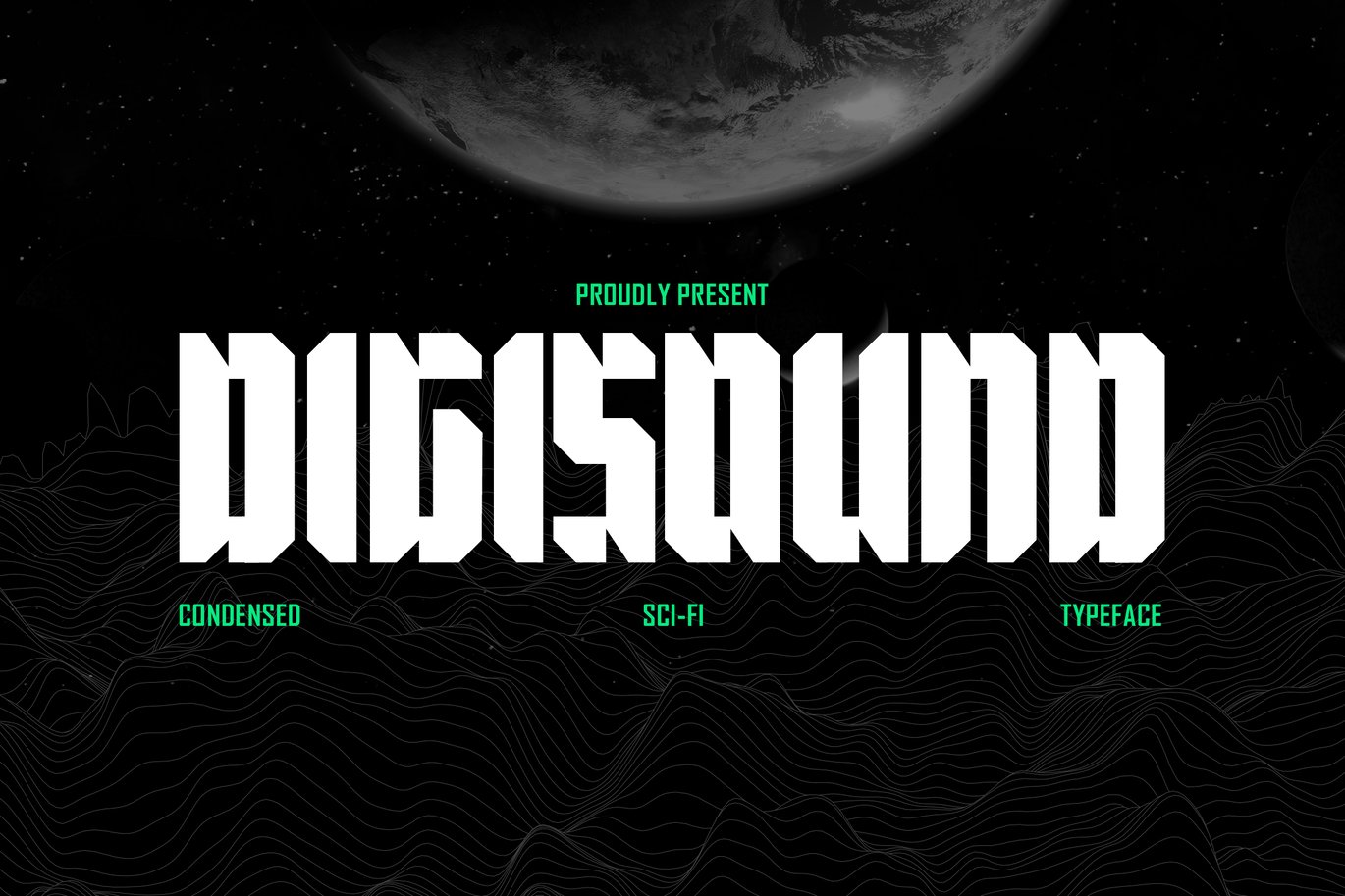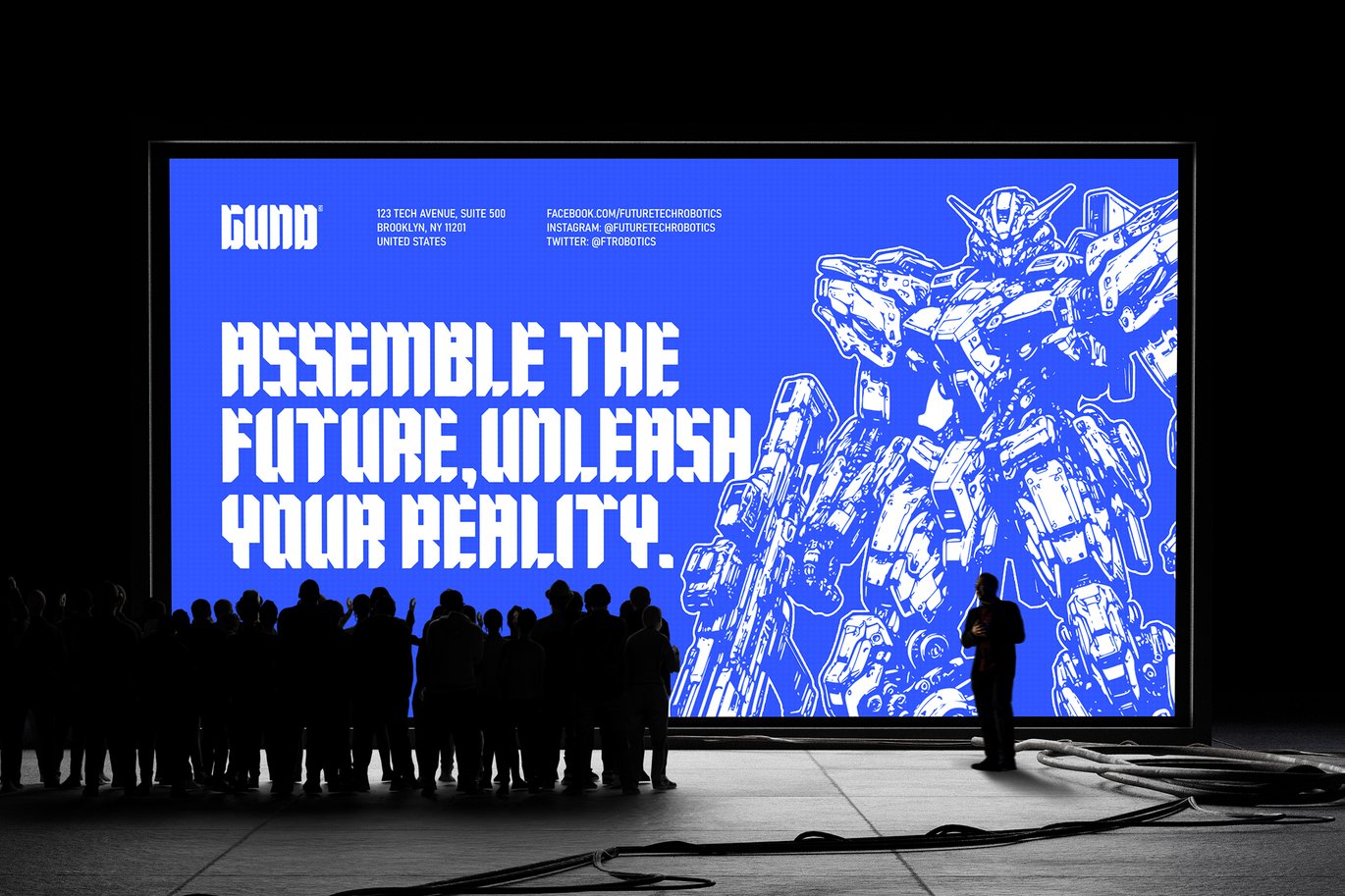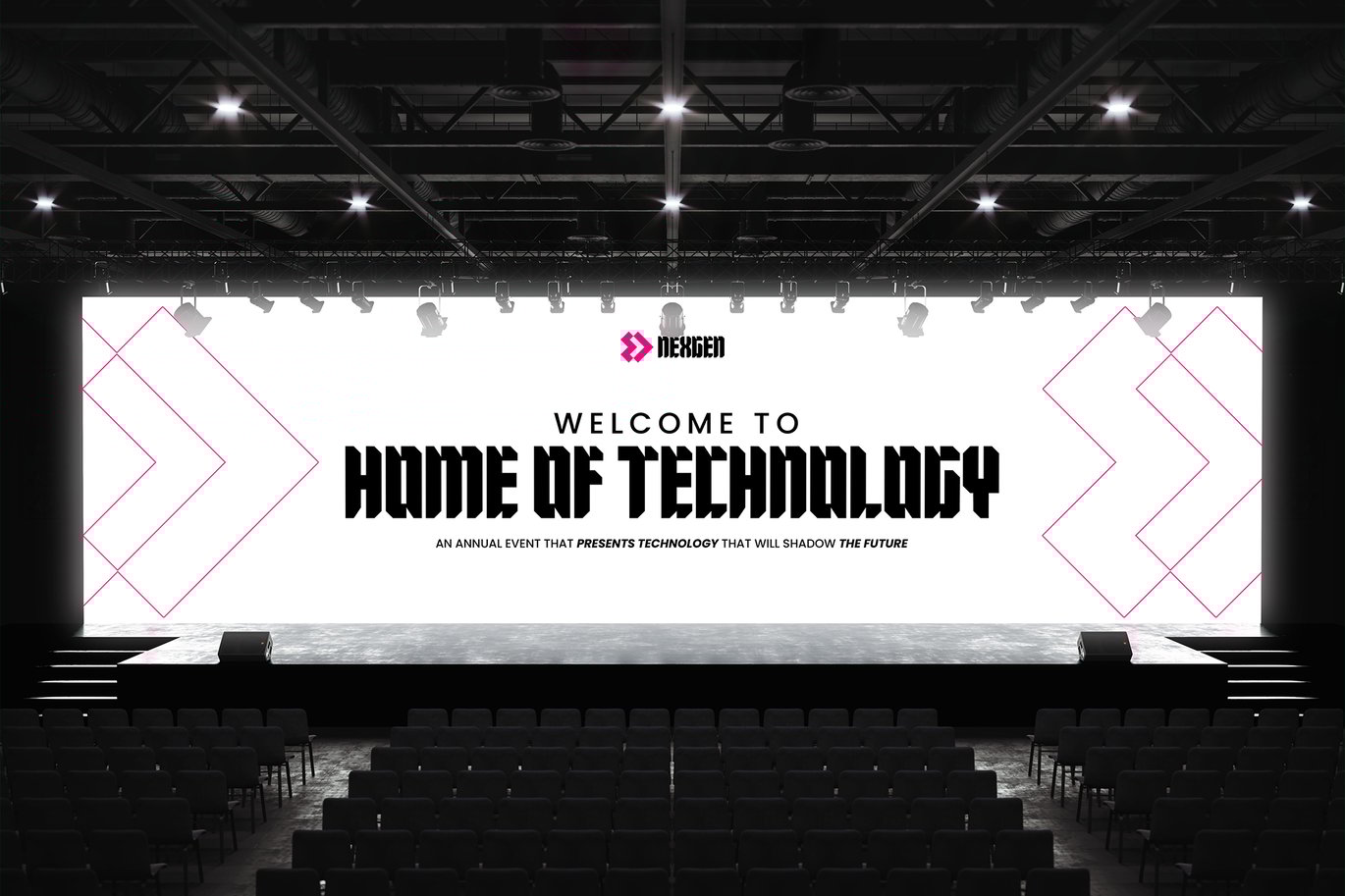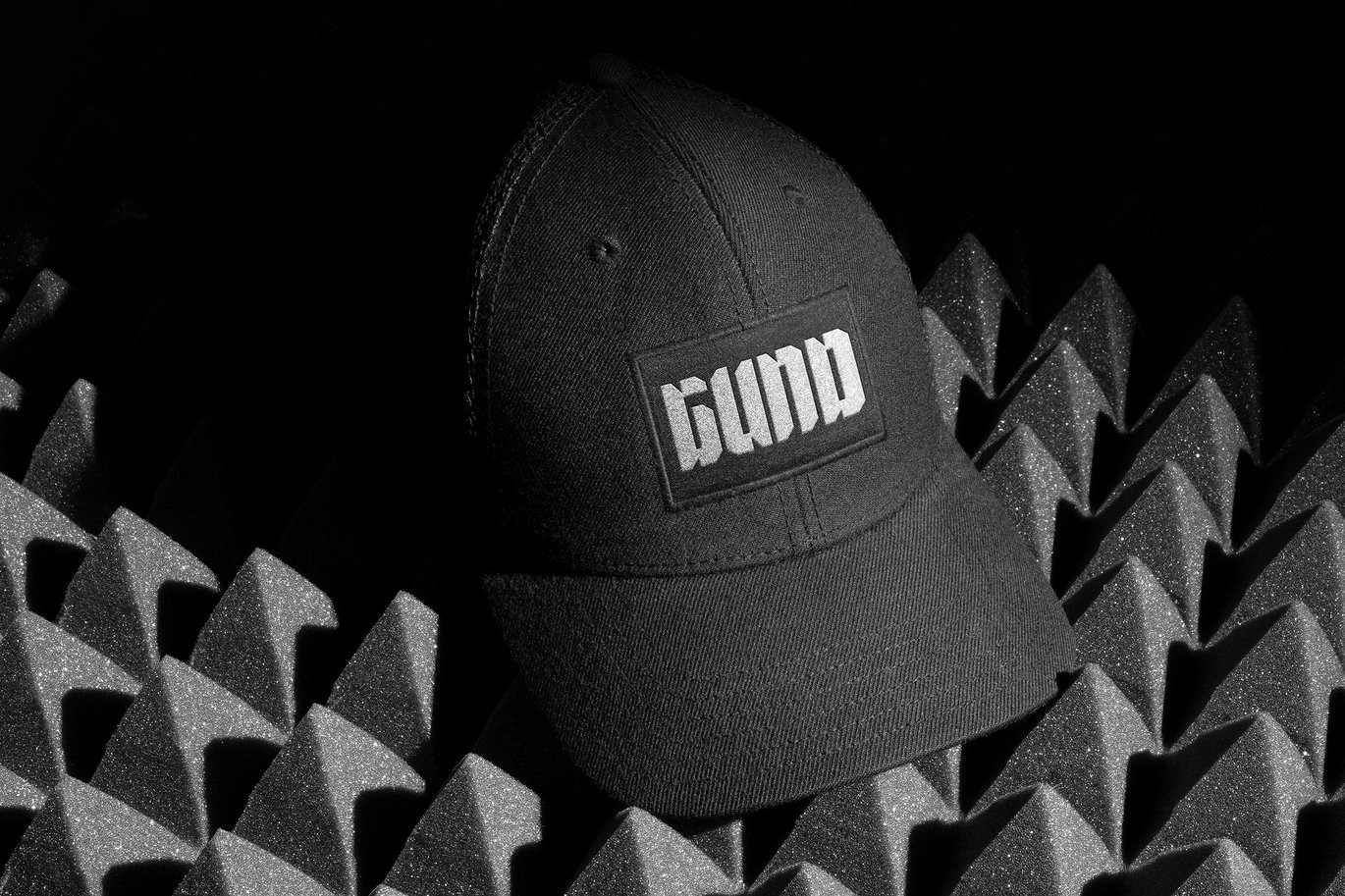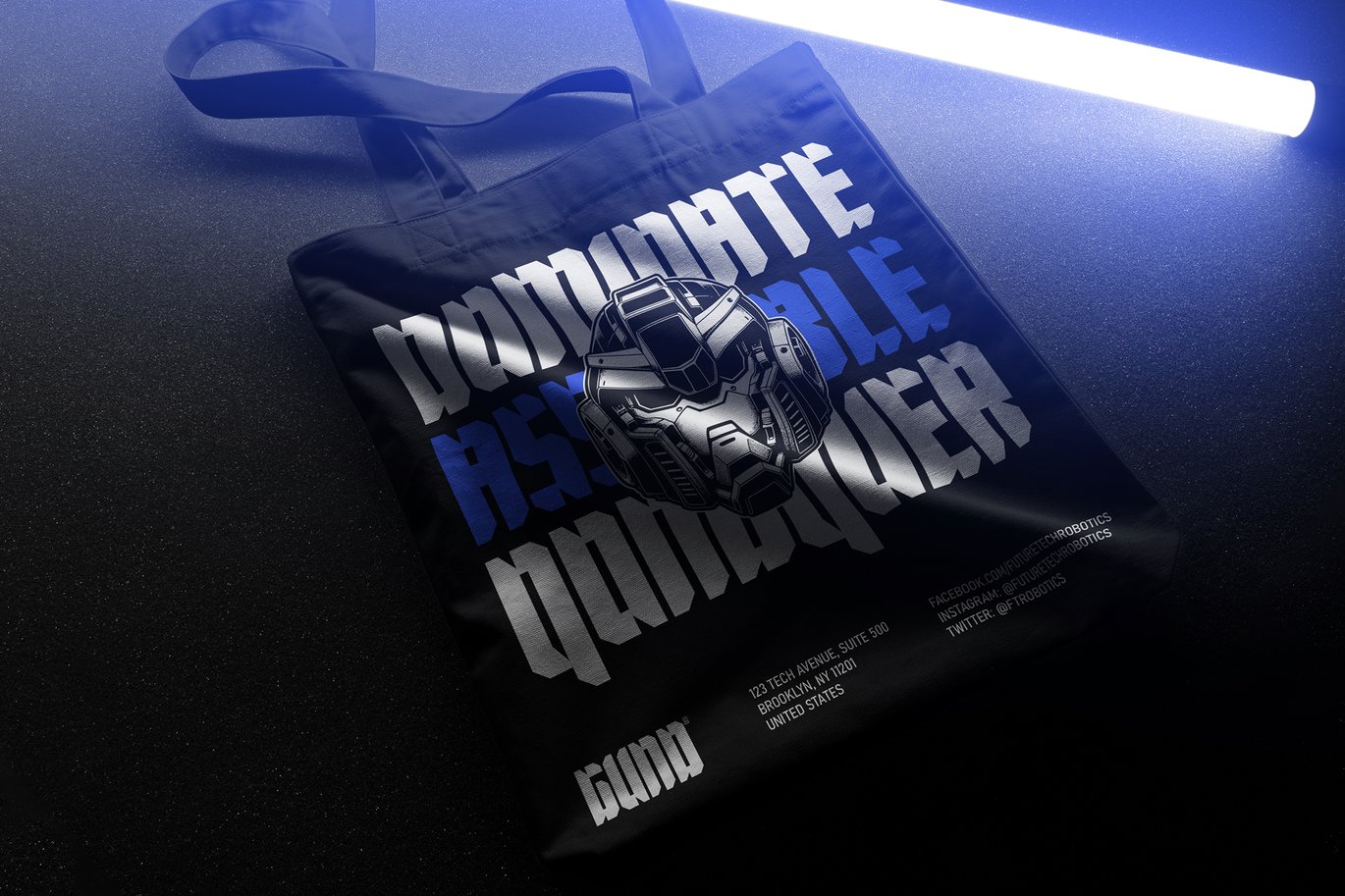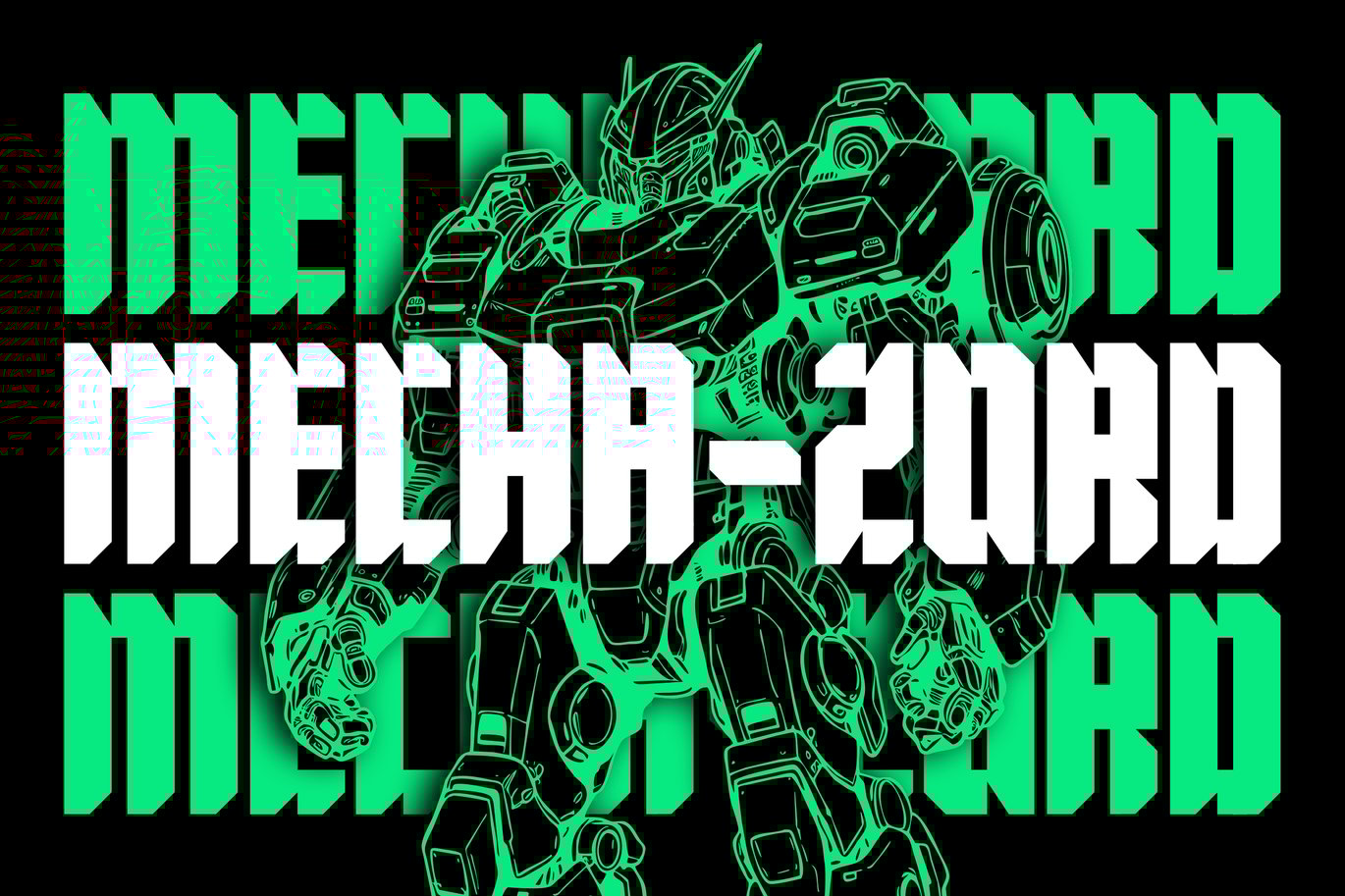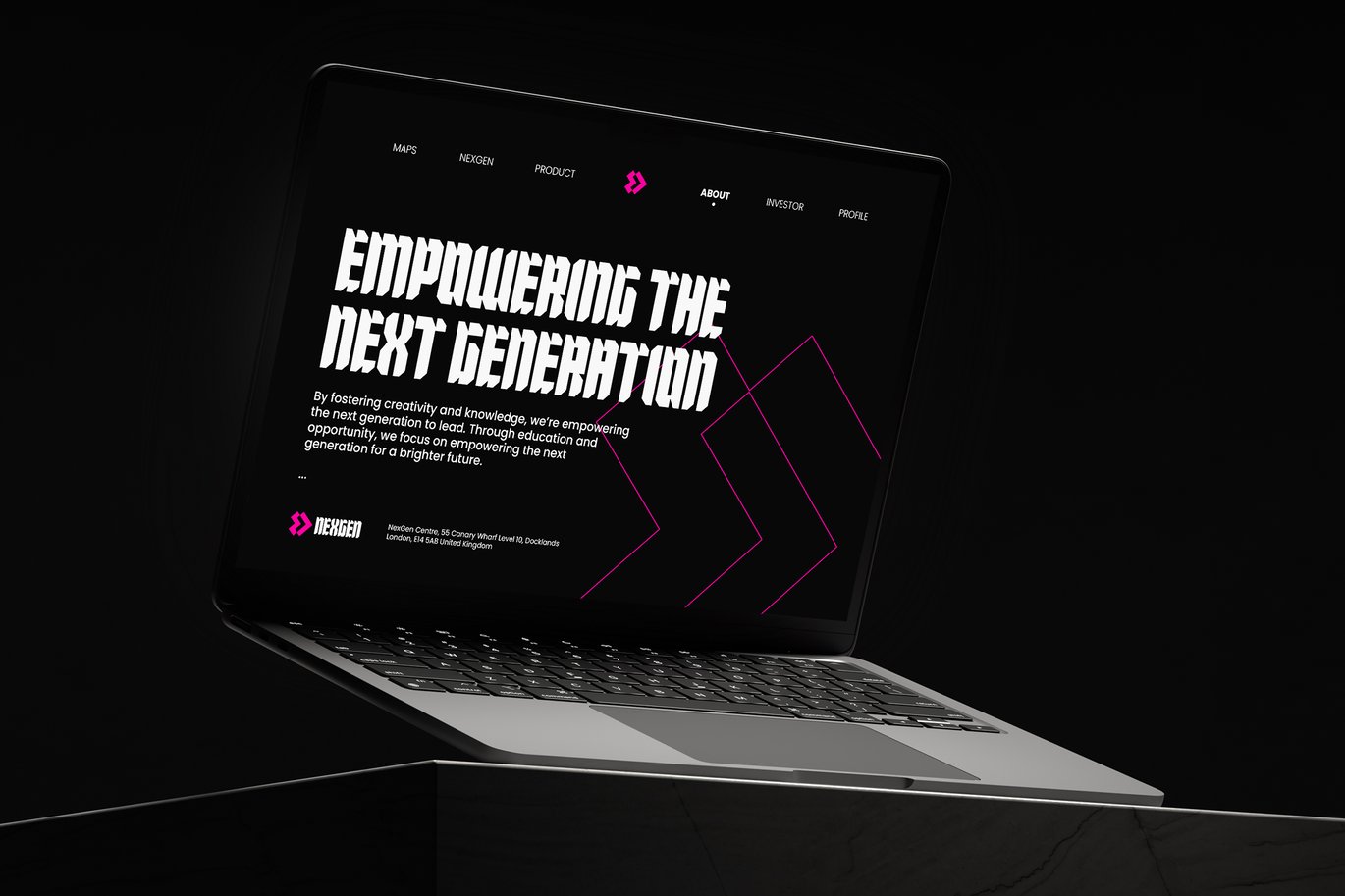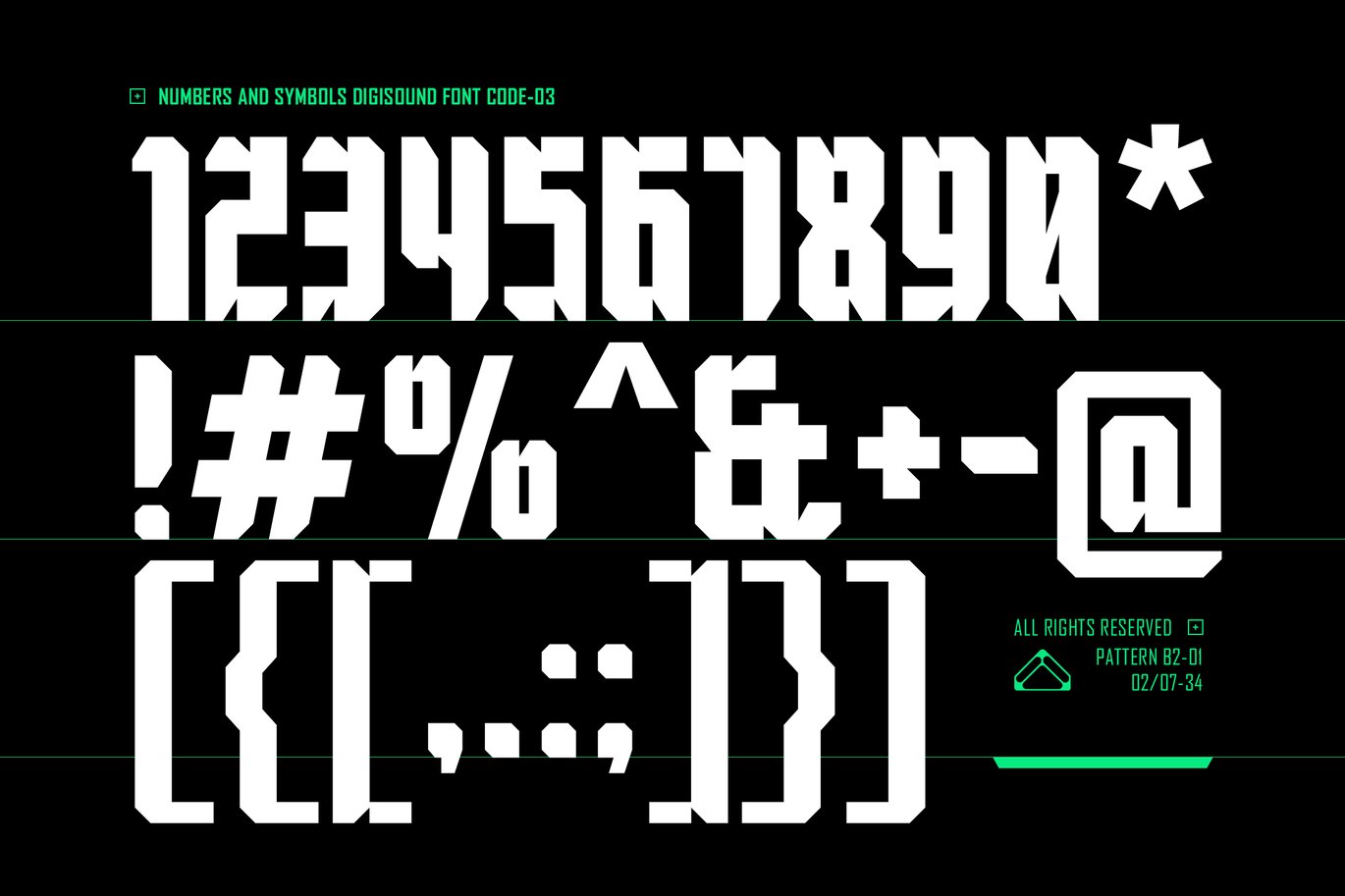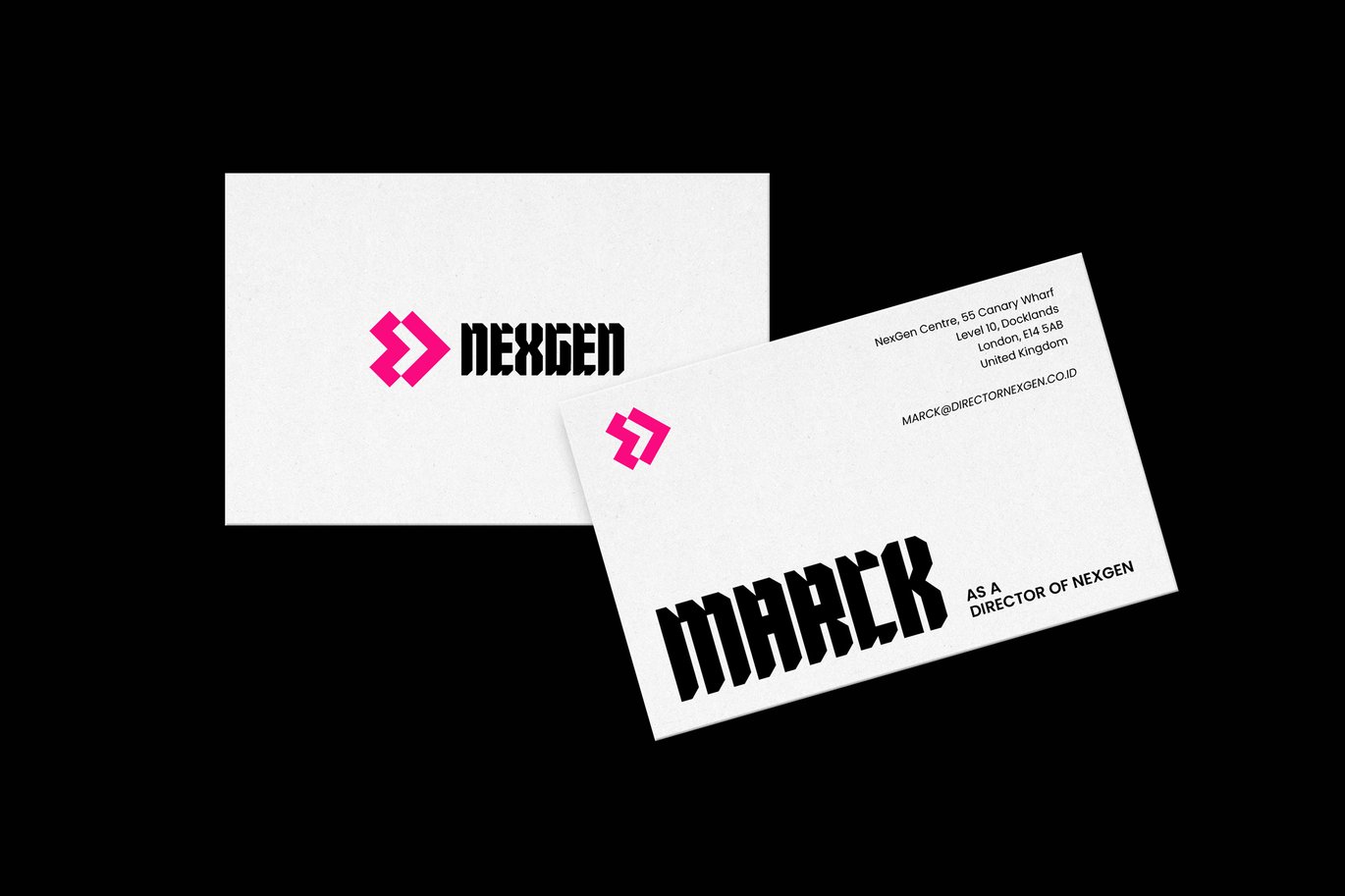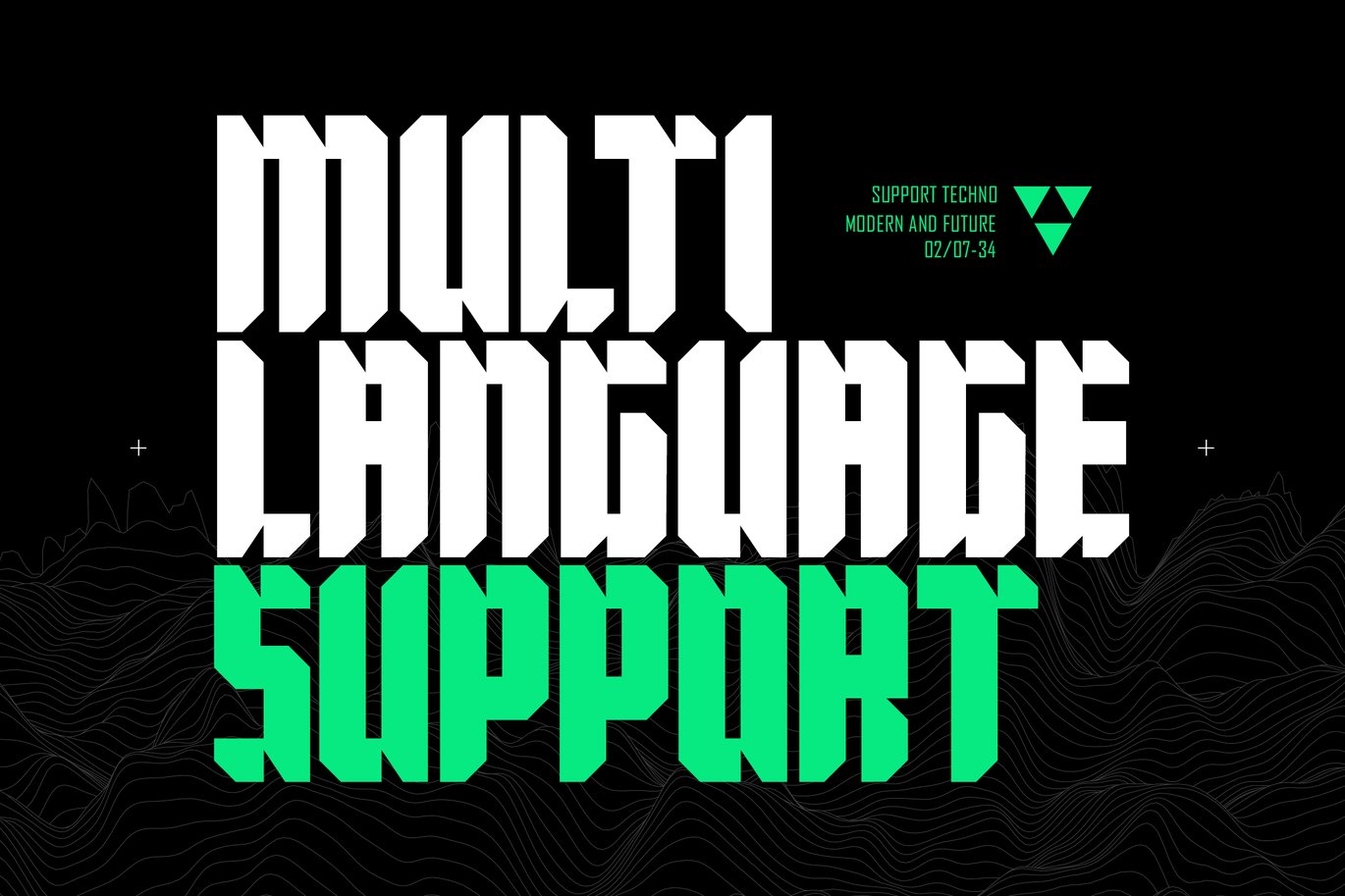
Digisound – Modern Bold Condensed Sci-Fi Font
Digisound – Modern Bold Condensed Sci-Fi Futuristic Font – Digital Sport Game Display Font
Digisound is a Modern Bold Condensed Sci-Fi Futuristic Font that embodies the essence of the digital age. With its sharp lines, condensed structure, and bold appearance, Digisound brings a futuristic aesthetic to your designs. It’s perfect for creating a high-tech, cutting-edge vibe, such as branding sci-fi-themed projects, tech branding, futuristic posters, video game titles, movie posters, logo design, digital interfaces, and any design where a modern, tech-forward look is essential. Comes with a full set of uppercase and lowercase letters, punctuation, numerals, and unique alternates. Digisound also supports offers extensive multilingual support, making it versatile and adaptable for a wide range of creative projects. Designed to merge the boldness of modern typography with futuristic design, Digisound is both visually impactful and versatile, making it a go-to font for designers aiming to create bold, futuristic visuals.